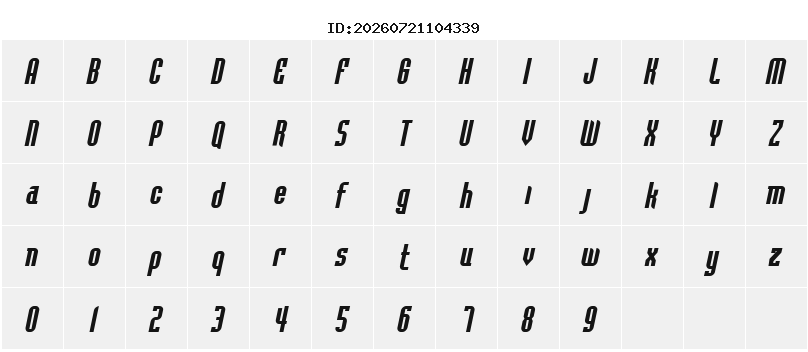
Flintstone Preview
• Font Name: Flintstone
• Font Style: BoldItalic
• Font ID: Altsys Fontographer 4.1 Flintstone BoldItalic
• Full Font Name: Flintstone BoldItalic
• Version: Altsys Fontographer 4.1 2/1/95
• PostScript Name: FlintstoneBoldItalic
About Flintstone.ttf
Flintstone.ttf is a modern, elegant sans-serif font designed for ultimate readability and visual harmony. Perfect for branding, headlines, web design, and print materials.